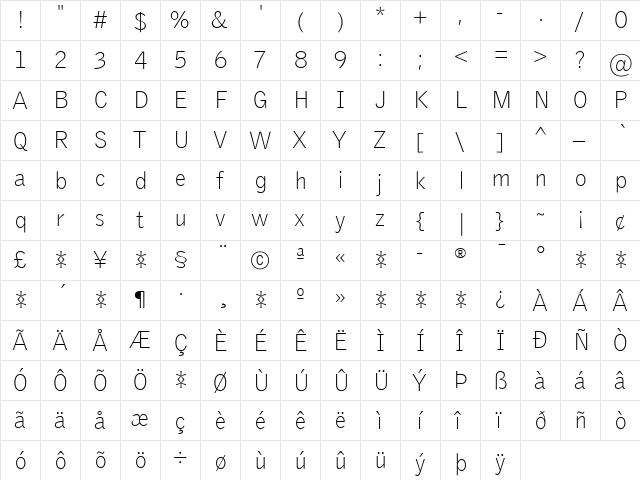
Griffith Gothic Thin Regular
Design Context for Griffith Gothic Thin Typeface
Griffith Gothic Thin has the quiet confidence of well-executed sans-serif typography: versatile, unobtrusive, and dependable at any size. Its slender proportions lend an understated elegance to any composition.
Ideal for fashion and beauty branding, minimal editorial layouts, and premium digital experiences.
Font Pairing: Pair Griffith Gothic Thin with a medium or bold serif for headlines — the weight contrast creates an elegant, high-end feel.
Pro Tip: Avoid using Griffith Gothic Thin at very small sizes where its slender strokes can disappear. It performs best at medium to large sizes.